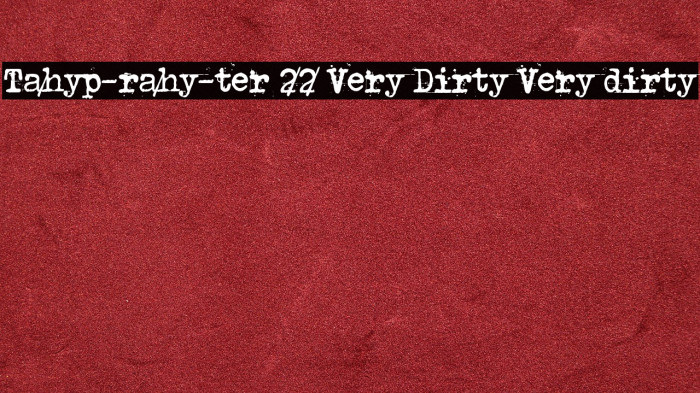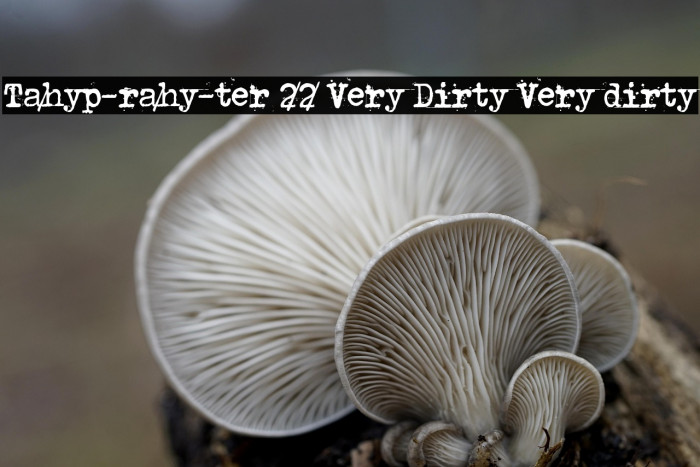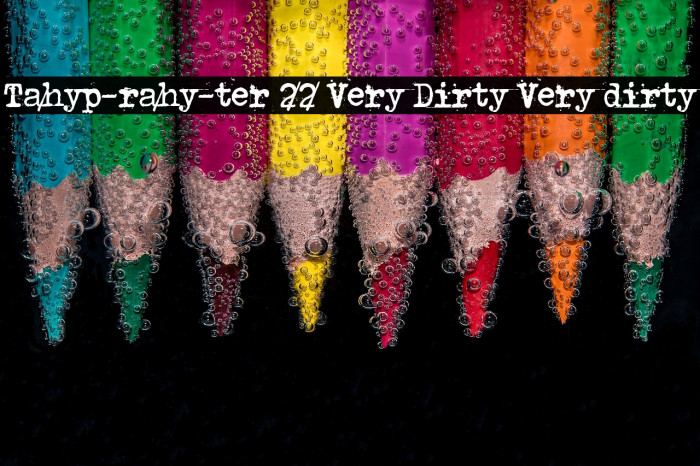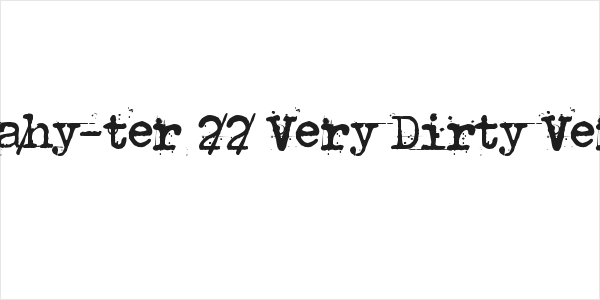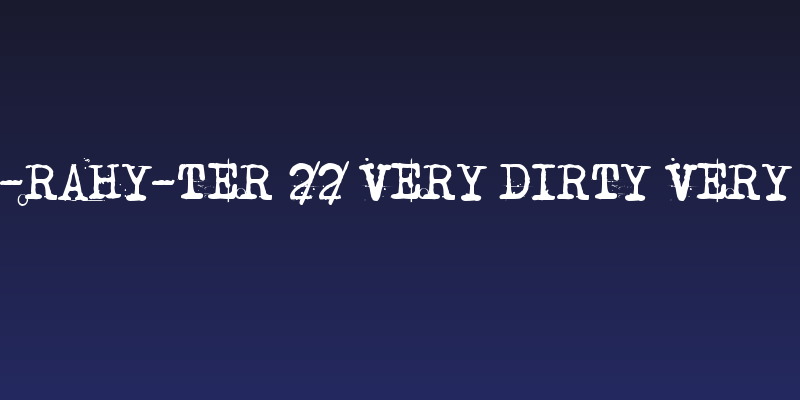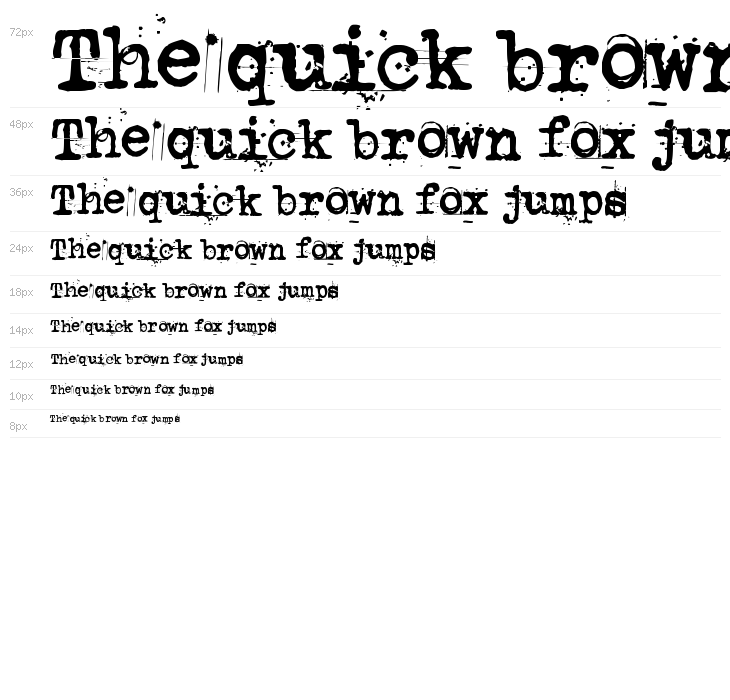
Tahyp-rahy-ter 22 Very Dirty Very dirty Font
Tahyp-rahy-ter 22 Very Dirty Very dirty Description
This font exhibits a rugged, distressed appearance reminiscent of old typewriter text that has been heavily worn or weathered. The characters are bold and have a rough texture, with irregular edges and ink splatters that give it a grunge aesthetic. The uppercase and lowercase letters maintain a consistent style, while the numbers and special characters follow suit with the same distressed look. This font's unique style is ideal for projects that require a vintage or industrial feel, adding character and depth to any design.
| Overall Style | Vintage, Grunge |
| Proposed Projects | Ideal for vintage posters, album covers, industrial-themed designs, and any project needing a rugged, aged look. |